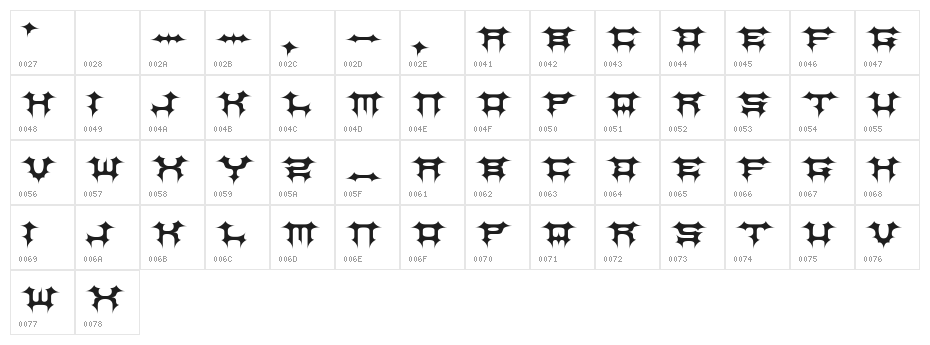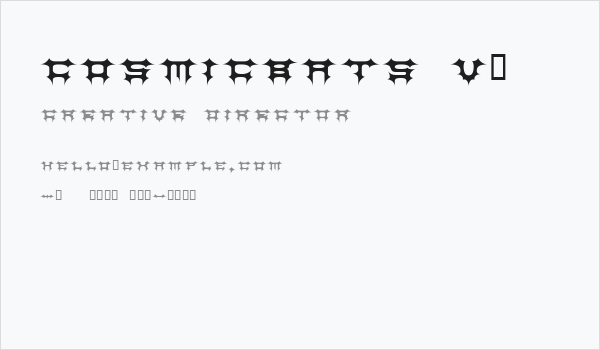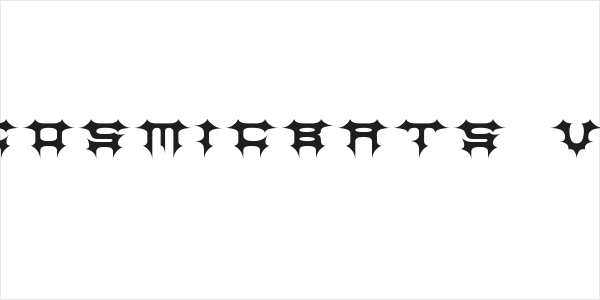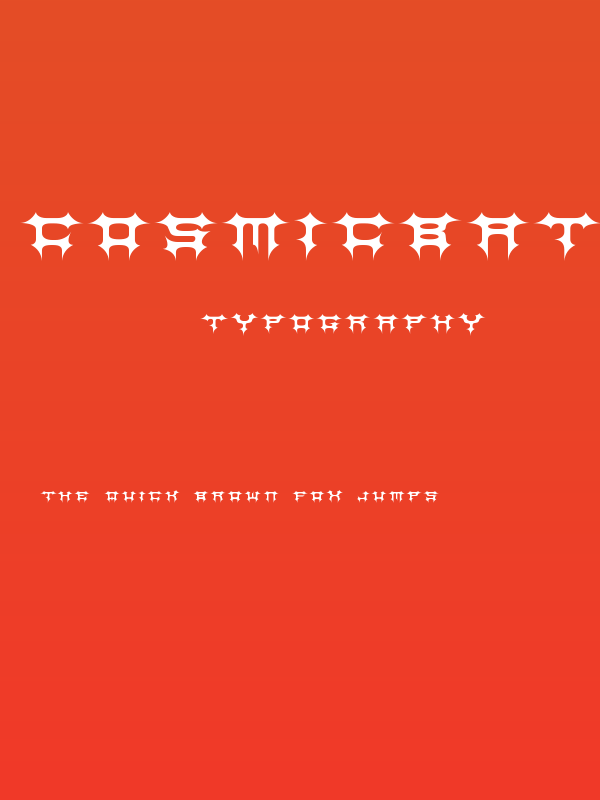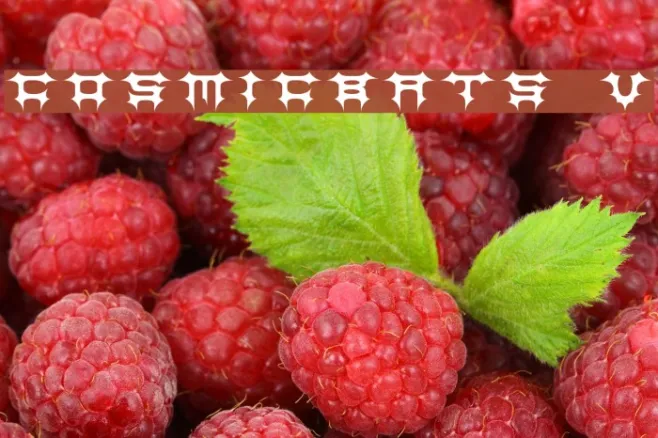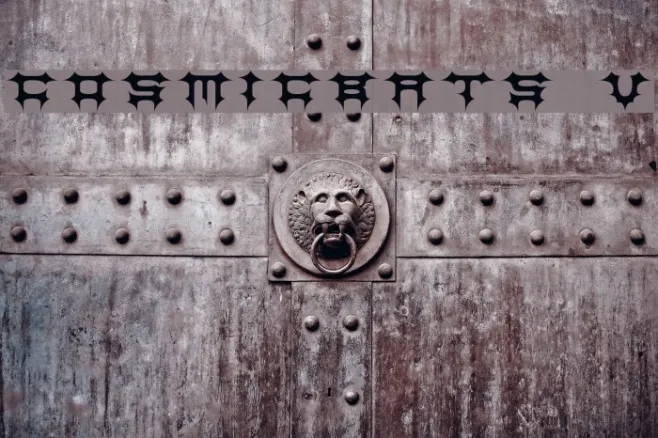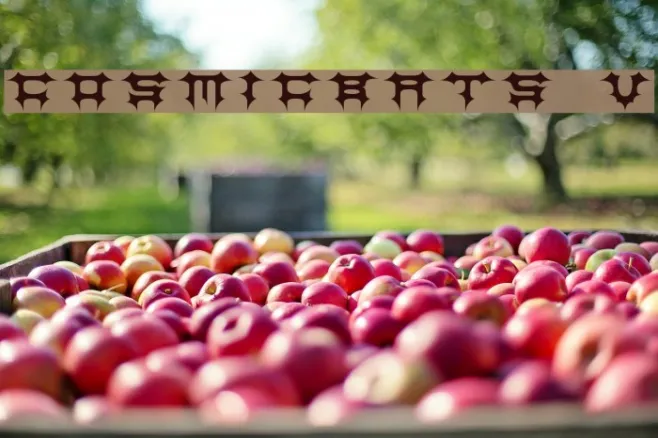
CosmicBats V1 Font
CosmicBats V1 Description
This font features a unique and striking design with sharp, pointed edges resembling bat wings or cosmic elements. The uppercase and lowercase letters maintain a consistent style, with each character exhibiting a symmetrical and bold appearance. The numbers are presented in a rectangular, box-like form, adding to the font's distinctiveness. Special characters are creatively designed, incorporating star-like and bat motifs, enhancing the overall theme. This font is ideal for projects that require a dramatic and eye-catching aesthetic.
| Proposed Projects | Perfect for Halloween-themed designs, sci-fi posters, video game titles, or any project needing a dramatic, otherworldly touch. |